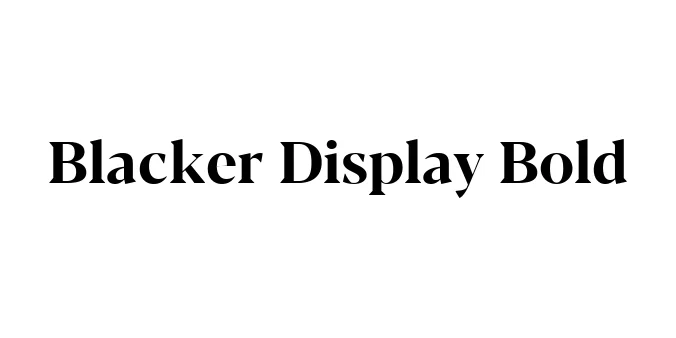
Blacker Display Bold
Designed by Francesco Canovaro and Cosimo Lorenzo Pancini
Blacker Display Bold is a sophisticated wedge serif typeface designed by Francesco Canovaro and Cosimo Lorenzo Pancini for Zetafonts in 2018. It was developed as a contemporary homage to the 'evil serif' genre—a style characterized by sharp, triangular serifs and high contrast that dominated the editorial landscape of the 1970s. The typeface balances a vintage soul with modern geometric precision, resulting in a font that is both aggressive and elegant.
The Display variant of the Blacker family is specifically optimized for large-scale usage, featuring tighter kerning and more pronounced details than its text-oriented counterparts. Because of its dramatic stroke variation and sharp edges, Blacker Display Bold has become a favorite choice for designers working in high-end fashion, luxury branding, and editorial layouts where a strong typographic voice is required to capture the audience's attention.
Blacker Display Bold Best Uses
Ideal for magazine headlines, covers, and large-scale pull quotes.
Perfect for luxury fashion logos and high-end visual identities.
High-impact for posters, billboards, and social media display graphics.
Effective for dramatic hero sections and landing page titles.